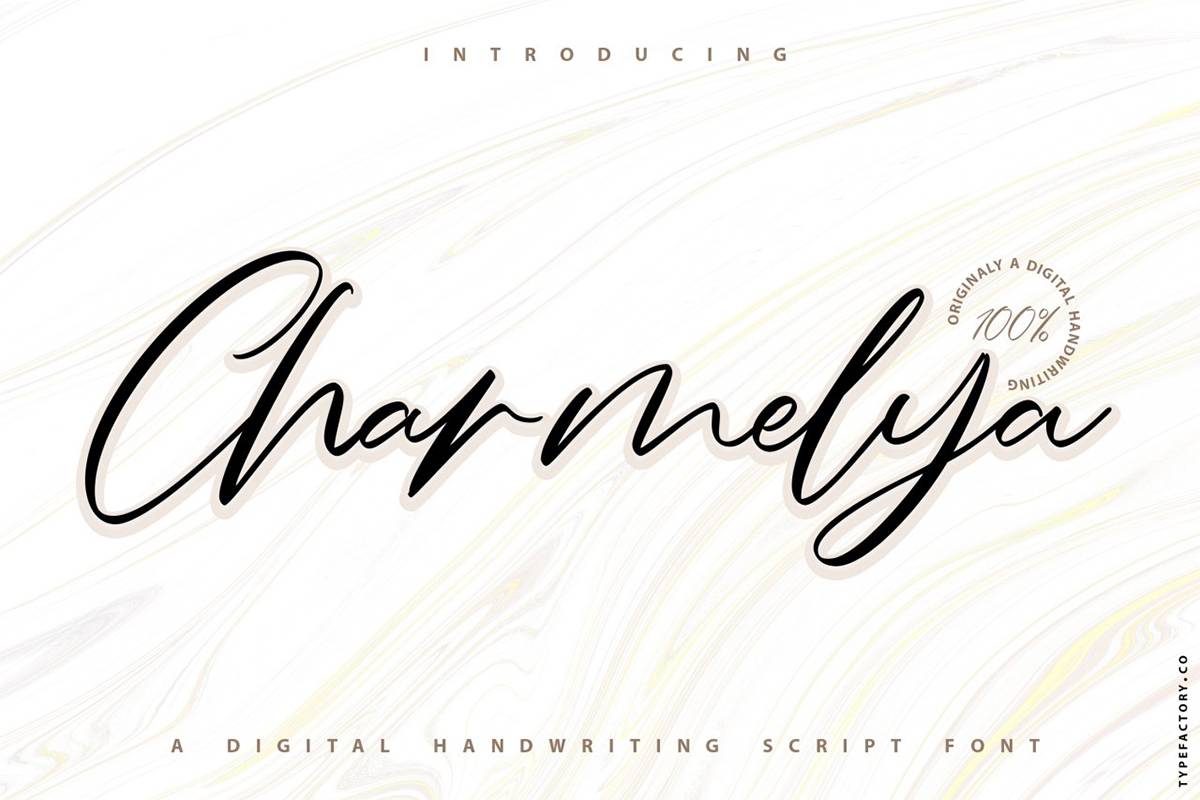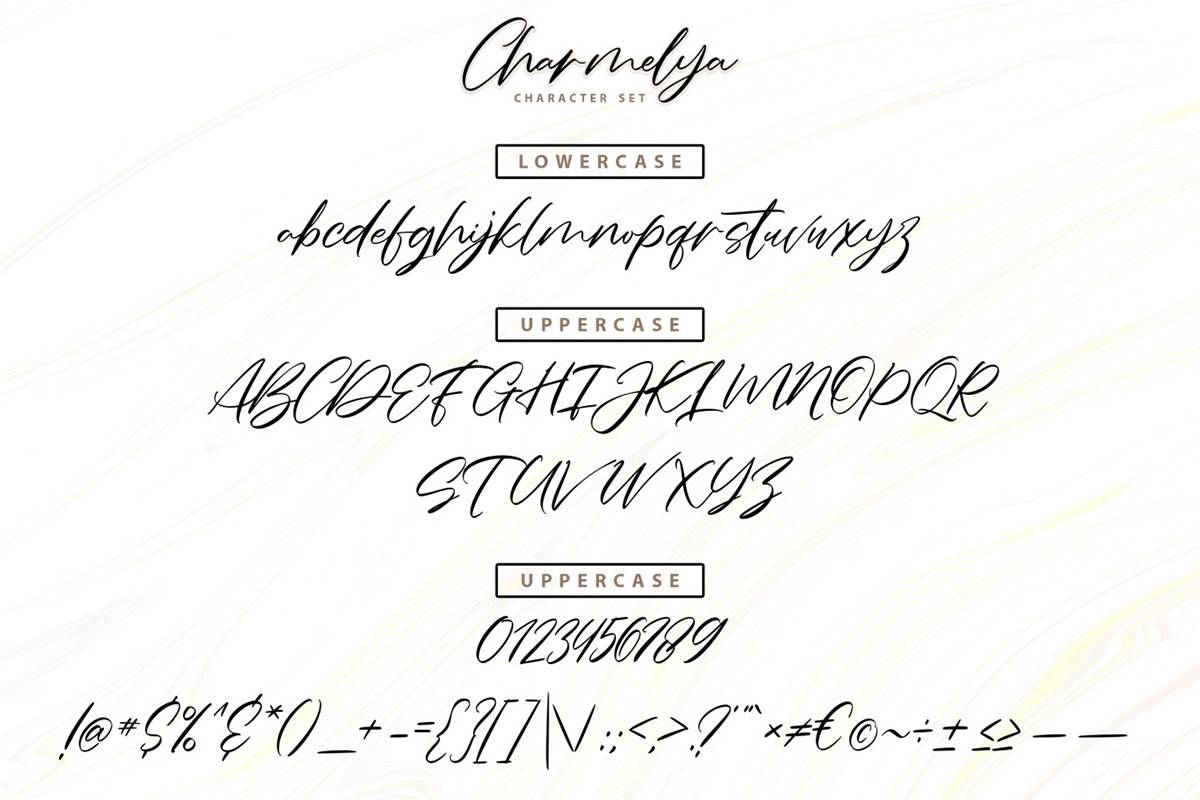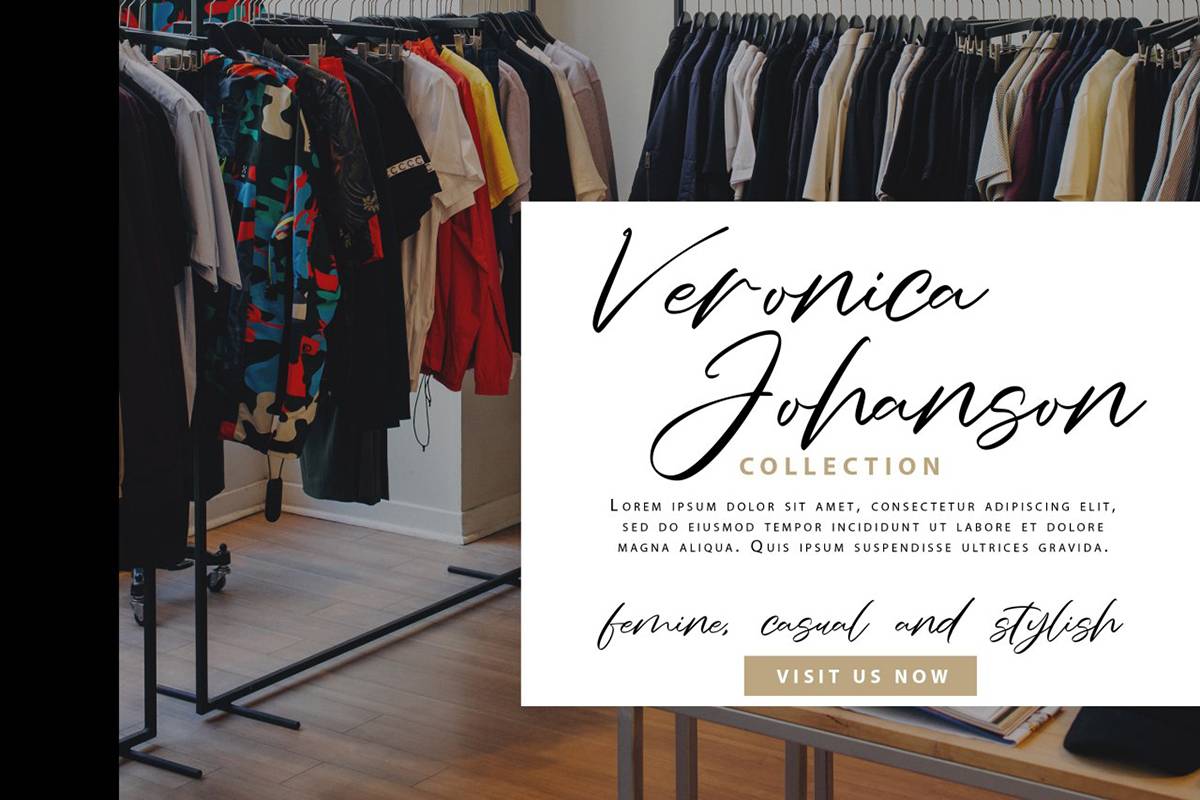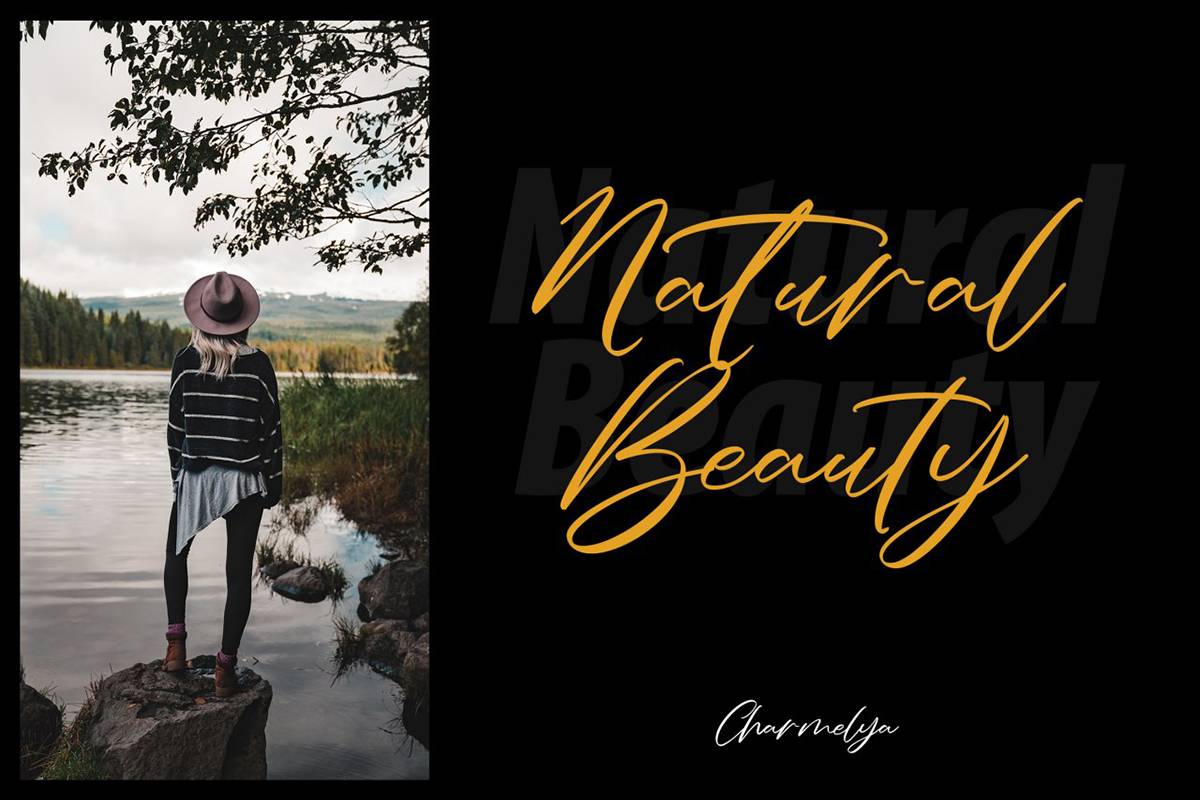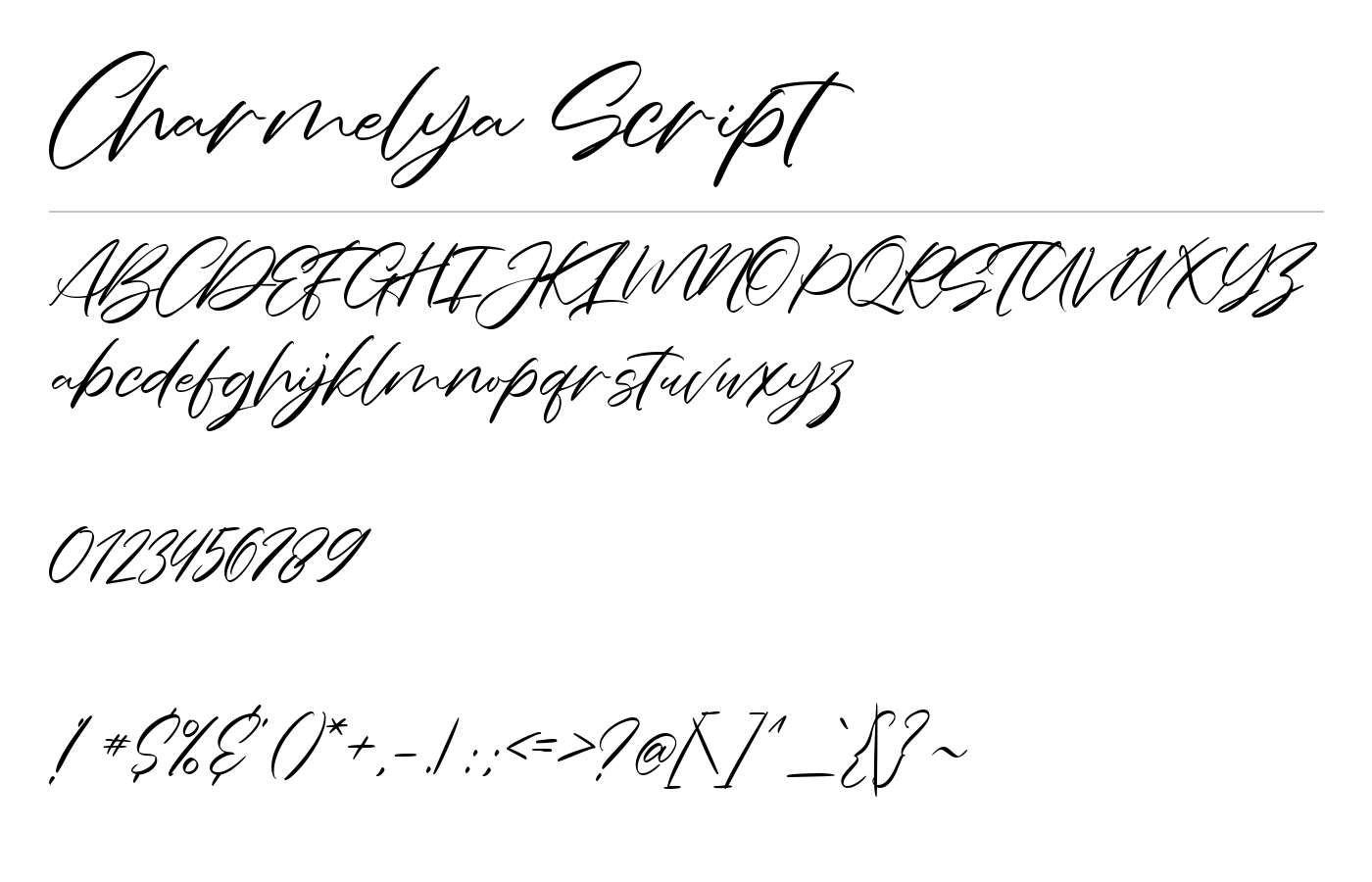
Charmelya is an elegant script font with a flowing, handwritten style that features smooth, slender strokes and a graceful rhythm. Its slender letterforms and natural cursive flow make it perfect for sophisticated branding, wedding invitations, and stylish editorial accents where a personal, refined touch is desired. This font brings a modern yet delicate feel that works beautifully in designs aiming for charm and elegance.
Charmelya Font
About Charmelya Font
| Font family | Charmelya Font |
| Release date | 2020-09-16 |
| Designer | Typefactory.co |